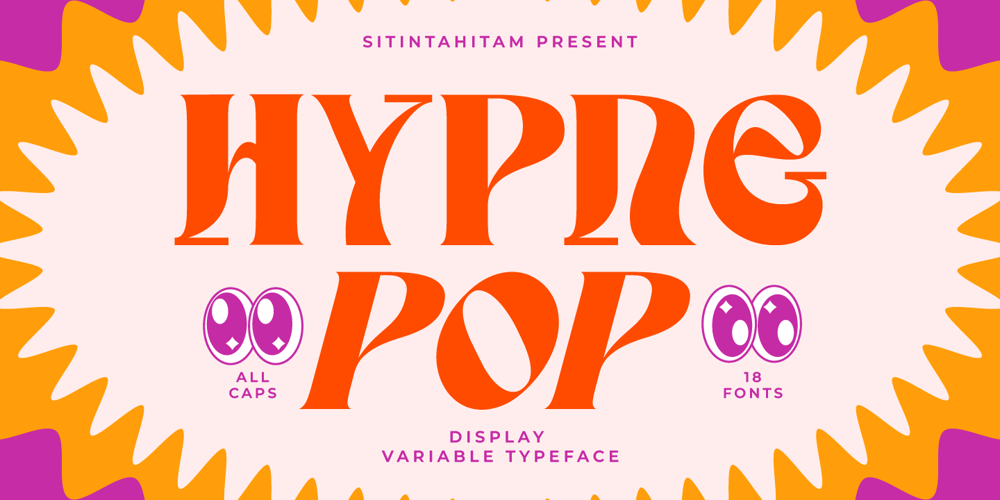
Hypne Pop Font Family was designed by Hasto Nugroho and published by Sitintahitam. Hypne Pop contains 18 styles and family package options. Hypne Pop is inspiring by retro pop culture, groovy, and funky. Hypne Pop comes with 9 weight unique regular and unique slanted style. Hypne Pop have a different characters in every style. This font also suitable for making headlines, stickers, T-shirt design, logotypes, poster, magazine, etc.